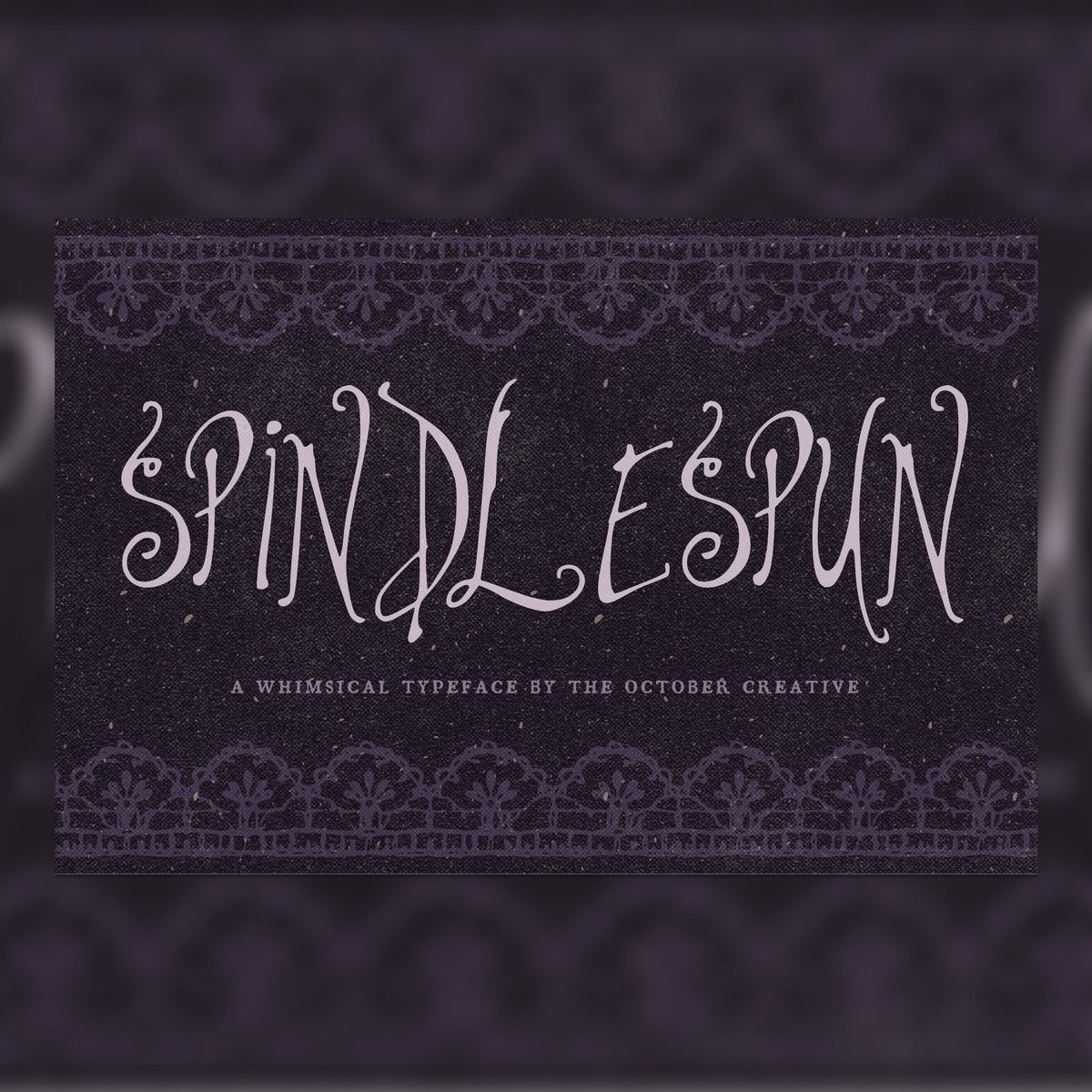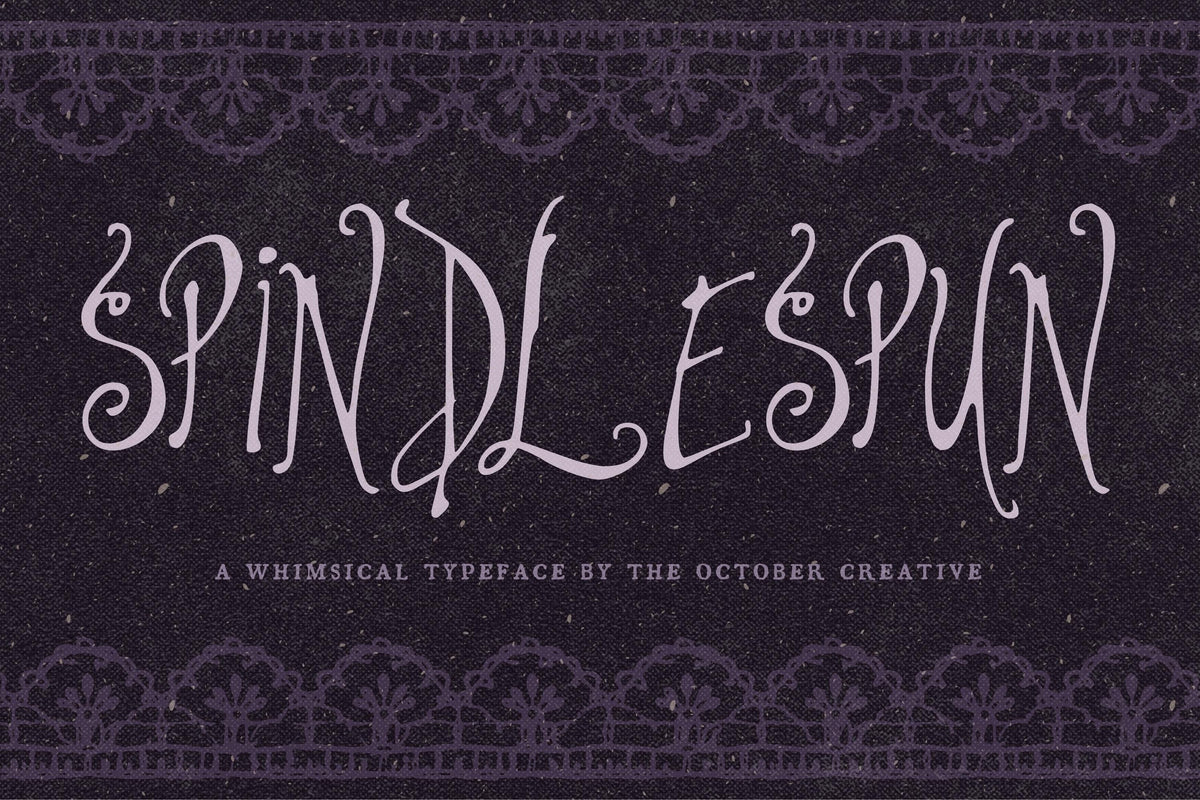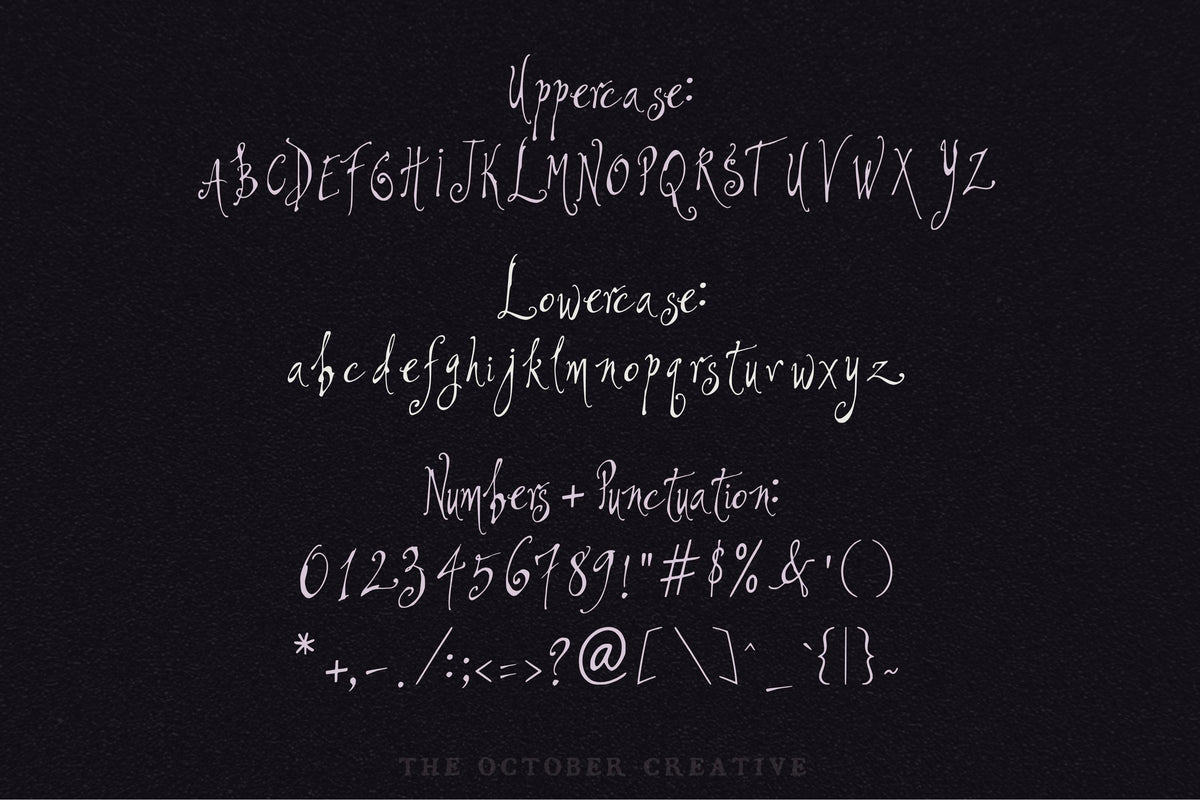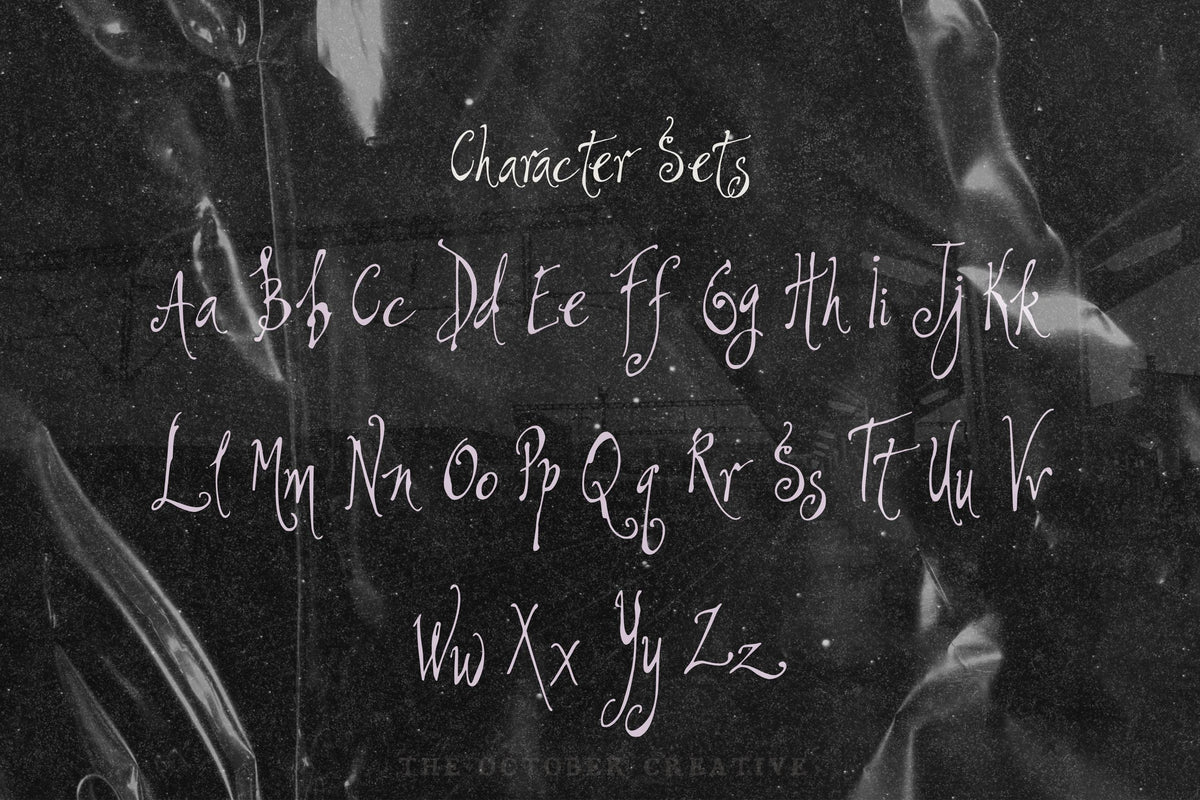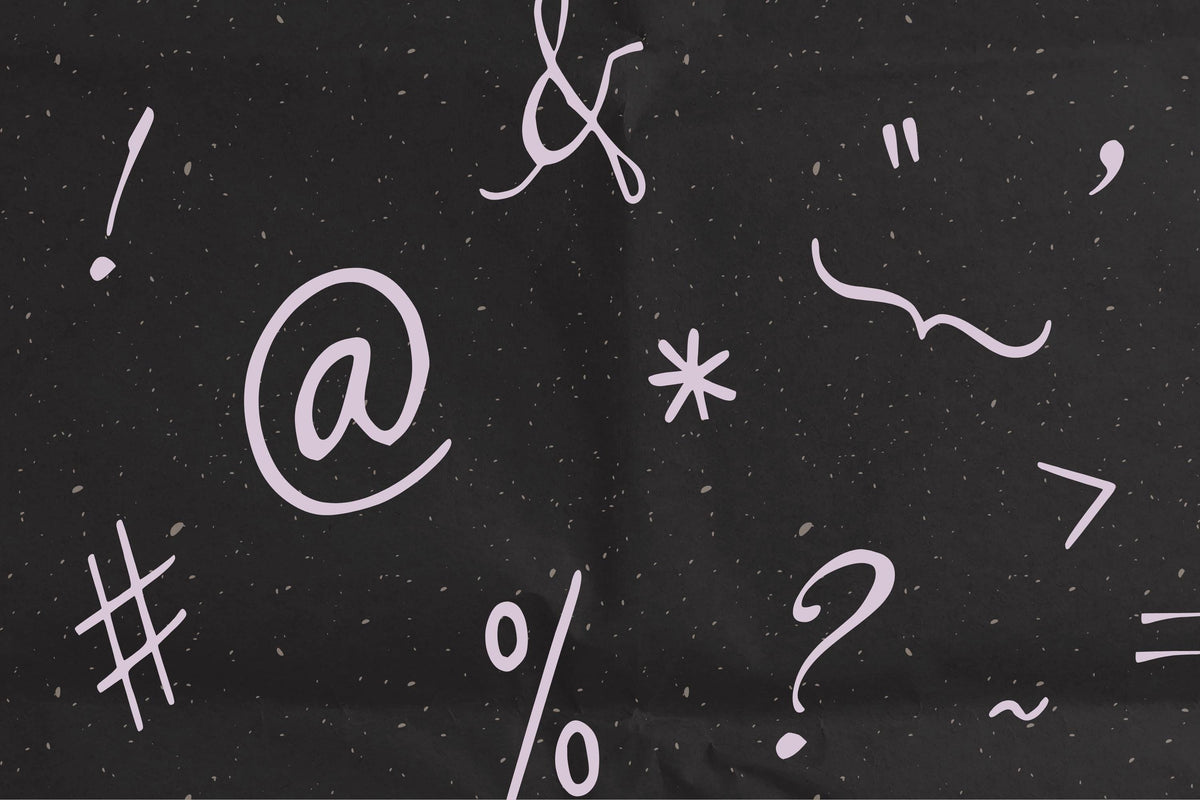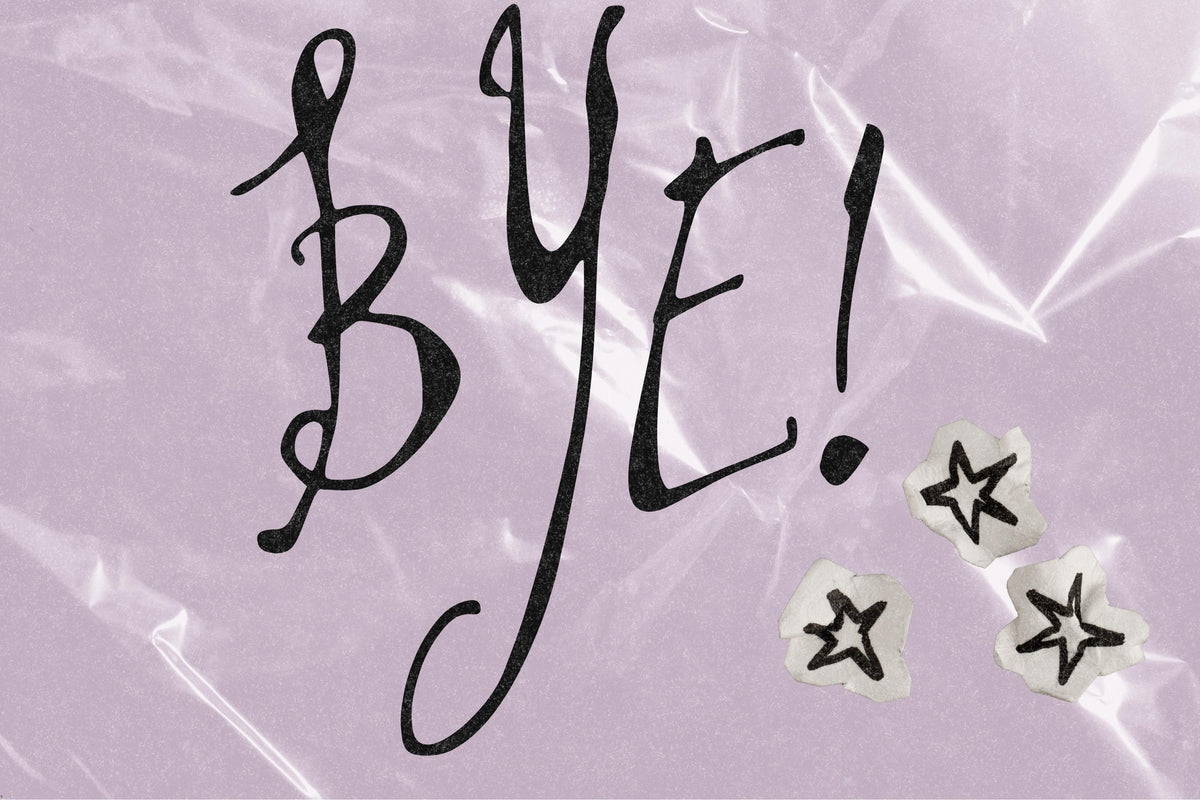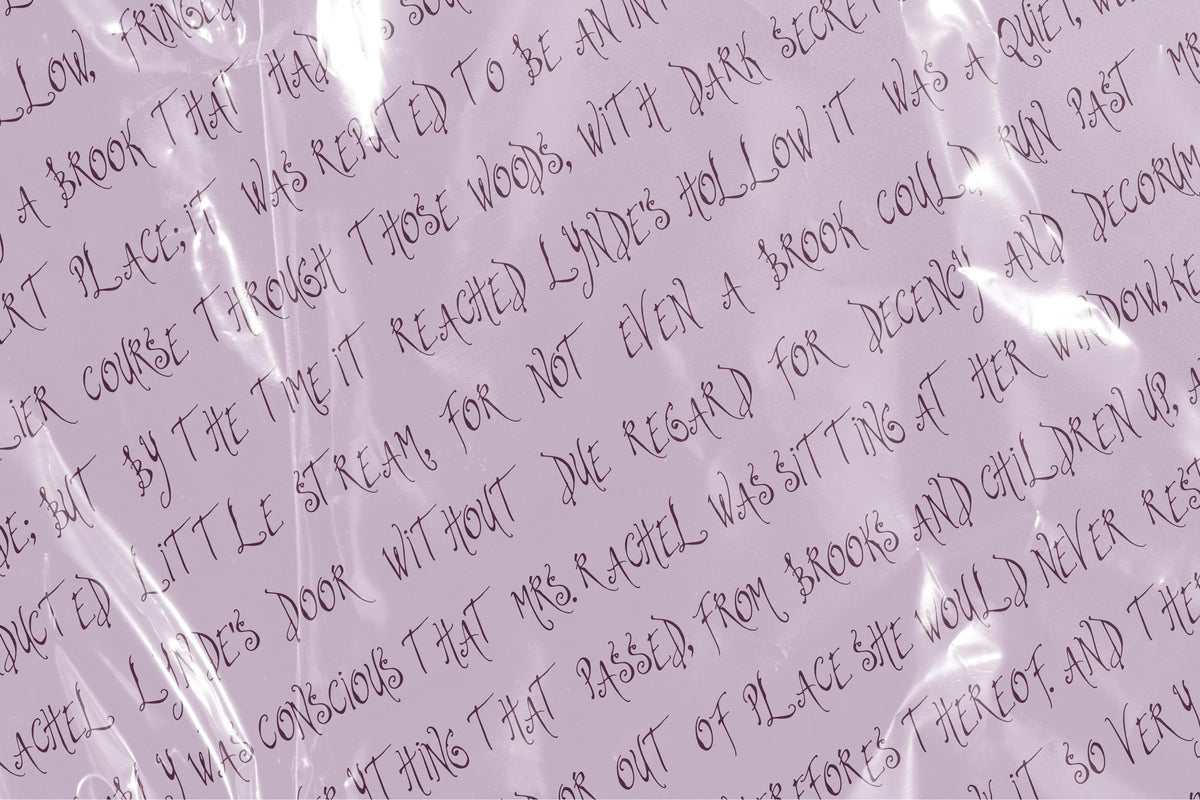
Spindlespun Font
Spindlespun has wonderfully long, narrow letters that look ready to introduce a fairy tale. Use it for storybook titles, enchanted party invitations, and prints with castles, forests, or a princess who has other plans.